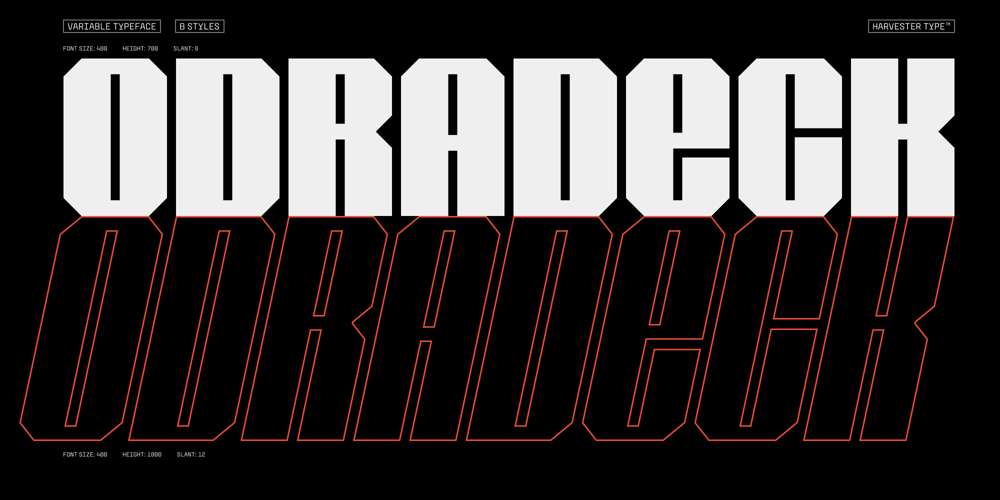
Odradeck Font Family was designed by Eugene Bunin and published by Harvester Type. Odradeck contains 9 styles and family package options. Odradeck is a typeface that originated from the idea of creating a tall, but narrow font, while combining brutalism and technogenic. The difficulty was not to go to extremes and make the font moderately neutral in order to significantly increase the range of font applications.Odradeck came out with a strict, industrial, geometric, but moderately neutral semi-mono font with two axes of variability: height and slant. To all this, + 300 glyphs were added and, as a result, support for +80 languages.The structure of the font allows you to use it in a limited space, and its flexibility will allow you to fill and use this space to the maximum. You can apply it in a very wide range of designs. Whether it’s a logo, packaging, banner, title, text, poster, merchandising, identity, branding or product design.Language support:Afrikaans, Albanian, Asu, Basque, Bemba, Bena, Breton, Catalan, Chiga, Colognian, Cornish, Croatian, Danish, Dutch, Embu, English, Esperanto, Estonian, Faroese, Filipino, Finnish, French, Friulian, Galician, Ganda, German, Gusii, Icelandic, Inari Sami, Indonesian, Irish, Italian, Jola-Fonyi, Kabuverdianu, Kalenjin, Kamba, Kikuyu, Kinyarwanda, Lower Sorbian, Luo, Luxembourgish, Luyia, Machame, Makhuwa-Meetto, Makonde, Malagasy, Manx, Meru, Morisyen, North Ndebele, Norwegian Bokmål, Norwegian Nynorsk, Nyankole, Oromo, Portuguese, Quechua, Romansh, Rombo, Rundi, Rwa, Samburu, Sango, Sangu, Scottish Gaelic, Sena, Serbian, Shambala, Shona, Soga, Somali, Spanish, Swahili, Swedish, Swiss German, Taita, Teso, Uzbek (Latin), Volapük, Vunjo, Walser, Zulu.